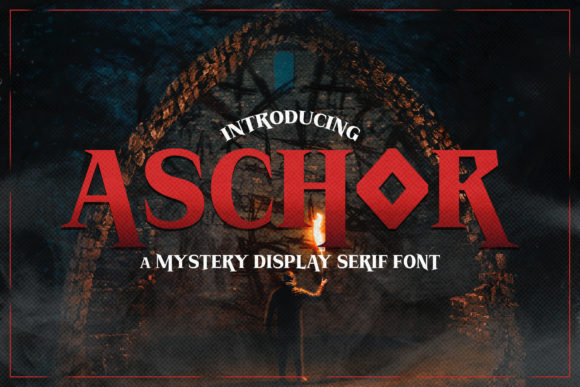
Journey into the realm of captivating horror with Aschor Font, a font family that weaves a spell of mystery and intrigue. Step into a world of eerie elegance and gothic charm, where your designs take on an aura of the unknown.
Crafted by the visionary artists at Drizy Studio, Aschor Font is not just a collection of letters, but a gateway to a captivating universe. Its modern yet whimsical style dances between the familiar and the fantastic, drawing the eye into a vortex of imagination.
Aschor Font is not just a tool for design but a catalyst for storytelling. It's an invitation to conjure up haunting tales, to breathe life into characters that lurk in the shadows, and to create worlds that exist beyond the boundaries of reality.
With Aschor Font, your creations will transcend the ordinary and take on an otherworldly allure. Its intricate details and bewitching curves will cast a spell on your audience, ensnaring them in a world of mystery and enchantment.
Unleash the power of Aschor Font and become a master of the macabre. Let your imagination run wild and explore the depths of darkness, where beauty and horror intertwine. Aschor Font is more than just a font; it's a portal to a world of limitless storytelling possibilities.
So, embark on this extraordinary journey with Aschor Font and let your imagination run free. Unlock the secrets of the night and let your designs speak volumes in the language of horror and enchantment.